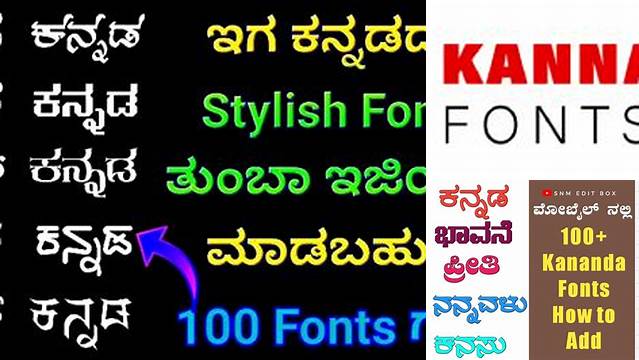
Free Kannada Bold Fonts: Download & Design Guide
Hey guys! Are you on the hunt for some awesome Kannada bold fonts? You've come to the right place! In this comprehensive guide, we'll dive deep into the world of Kannada typography, helping you find free downloads of bold fonts and showing you how to use them effectively. Whether you're a designer, a content creator, or just someone who loves the beauty of the Kannada script, this article is packed with useful information. Get ready to discover a range of resources, tips, and tricks to elevate your designs and express yourself with style.
Why Choose Kannada Bold Fonts?
First things first, why bother with Kannada bold fonts? Well, the answer is simple: they make a statement! Bold fonts are fantastic for grabbing attention, emphasizing key information, and creating a strong visual impact. They are perfect for headlines, titles, and any text that you want to stand out. When it comes to Kannada, a bold font adds a layer of visual interest and sophistication to the beautiful script. Using a bold font can make your text easier to read, especially at a distance or on smaller screens. In addition, bold fonts can improve the overall design of your project by creating a sense of hierarchy and balance. By varying the font weights, you can direct the viewer's eye and make your content more engaging. Think about it, bold fonts bring a touch of professionalism and can be especially useful in branding. Choosing the right Kannada bold font can significantly enhance the readability and appeal of your content. They give a modern and sophisticated look. Imagine designing a poster or website that needs to capture attention immediately; a well-chosen Kannada bold font does exactly that. And you are going to be able to do this. So whether you are creating marketing materials, social media posts, or personal projects, Kannada bold fonts are a valuable asset. They are amazing!
Benefits of Using Kannada Bold Fonts
Let's break down the advantages even further. Using Kannada bold fonts offers several key benefits that can significantly enhance your design and communication efforts. Firstly, bold fonts naturally draw the viewer's eye. They create an immediate focal point, making it easier for your audience to grasp the main message at a glance. This is especially crucial in a world where people are constantly bombarded with information. Secondly, they enhance readability. The thicker strokes of a bold font make the text clearer and easier to read, particularly on screens. This is super helpful for lengthy text or when the font is used in small sizes. Thirdly, bold fonts give a sense of emphasis and importance. They highlight key words or phrases, so you can create a visual hierarchy that guides the reader through your content. This strategic use of bold fonts can make your message more effective and engaging. Fourthly, bold fonts add style and personality to your design. Kannada bold fonts can inject personality and unique design flair, and can be used to improve your brand. Choosing the right bold font can set the tone for your entire project. It can be anything from elegant to playful. Finally, using bold fonts can improve accessibility. For people with vision problems, bold fonts can make text more accessible and easier to read. This inclusivity is an important aspect of good design.
Tips for Using Kannada Bold Fonts Effectively
Alright, you have got your fonts. How to make the most of them? Let's talk about some essential tips for using Kannada bold fonts effectively in your designs. First of all, choose the right font for the job. Consider the overall tone and style of your project. A bold font can work well for headlines, but it might not be suitable for long blocks of text. Make sure your font choice is consistent with your brand's personality. Secondly, pay attention to readability. While bold fonts are great for emphasis, make sure the text is still easy to read. Avoid using excessively bold fonts for large amounts of text, and consider the contrast between the text and the background. Thirdly, use bold fonts strategically. Reserve bold fonts for important information, such as headlines, subheadings, and key call-to-actions. This will help to draw attention to the most critical elements of your design. Fourthly, consider pairing fonts. Combine your Kannada bold font with a complementary font for body text. Experiment with different font combinations to create a balanced and visually appealing design. Fifthly, adjust the font size and spacing. Make sure your font size is appropriate for the context, and adjust the spacing between characters (tracking) and lines (leading) for better readability. Finally, test your designs. Always test your designs on different devices and screen sizes to ensure your bold fonts look great everywhere. By following these tips, you can harness the power of Kannada bold fonts to create designs that are both visually appealing and highly effective.
Best Practices for Bold Font Usage
Let's dive deeper into some best practices to help you maximize the impact of your Kannada bold fonts. First, ensure that you are using contrast appropriately. Use high contrast between your text and the background. Dark text on a light background or vice versa works well for readability. Poor contrast will make your text difficult to read. Second, maintain hierarchy with your fonts. Use bold fonts to create a clear visual hierarchy, guiding the reader's eye through the content. Headlines, subheadings, and key phrases should stand out using bold fonts. Third, be mindful of font pairing. Pair your Kannada bold font with a suitable font for body text. This allows for visual interest, and ensures the project is well-balanced. Fourth, control your spacing and kerning. Adjust the letter spacing and line spacing (kerning) to improve the readability of your text. This will also ensure the font appears balanced and easy to read. Fifth, avoid overusing bold fonts. Overusing bold fonts can diminish their impact. Be strategic and reserve bold fonts for emphasis. Sixth, consider the context. Think about the audience and the context of your design. A bold font might be appropriate for a poster, but it might not be appropriate for a formal document. Finally, get feedback. Ask for feedback on your designs from others. This helps you identify any readability issues or design flaws. Good design is not easy, but with these suggestions, you can be more confident about your designs.
Conclusion: Elevate Your Designs with Kannada Bold Fonts
There you have it, guys! You now have the knowledge and resources to find, download, install, and effectively use Kannada bold fonts in your design projects. Bold fonts are a powerful tool that, when used correctly, can significantly enhance the visual appeal and impact of your work. So, go out there, explore the various font options, and start creating stunning designs that captivate your audience. With a little creativity and attention to detail, you can make the Kannada script shine. Happy designing!